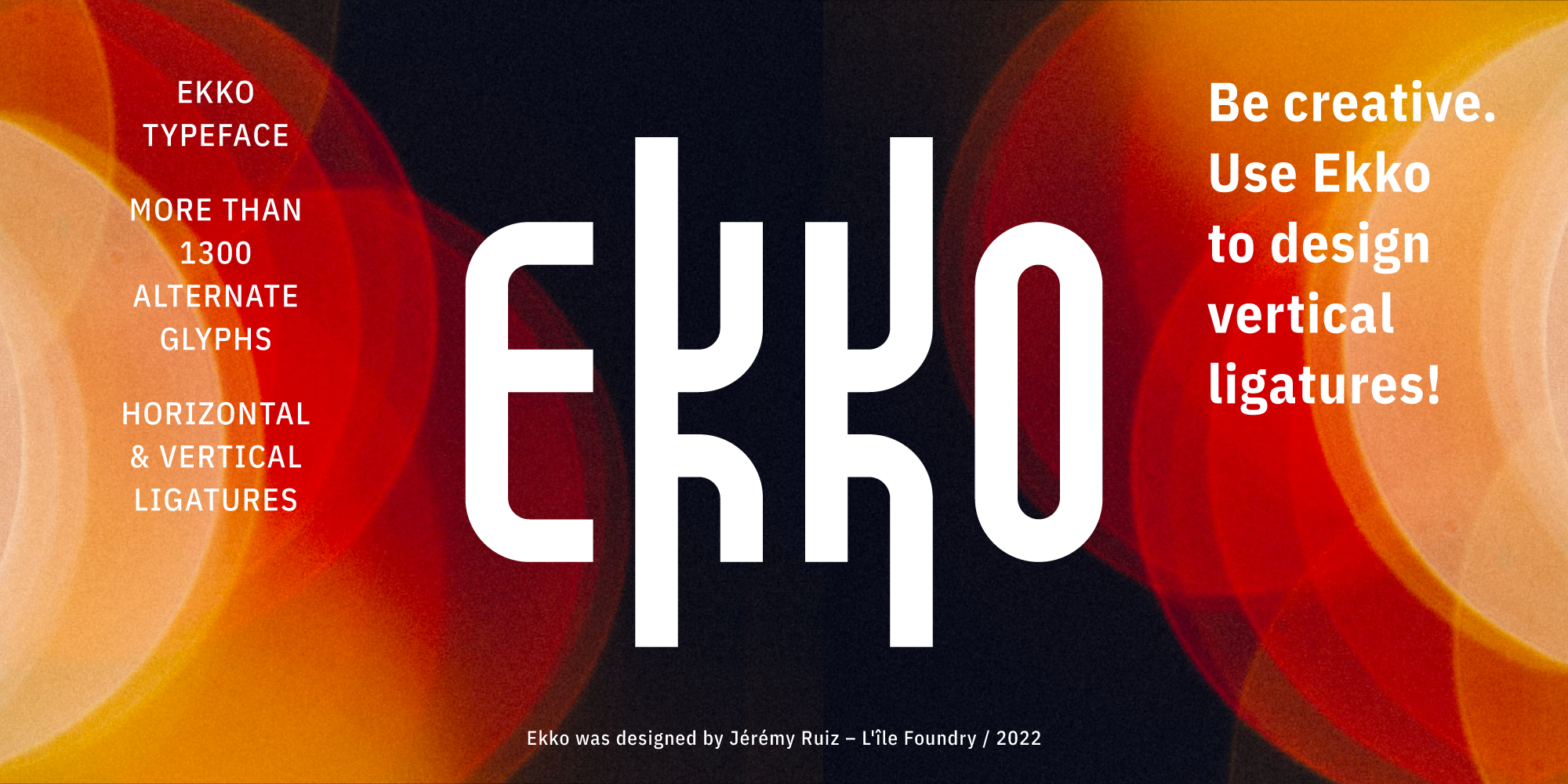
Bring contemporary style and dynamic flair to your designs with Ekko Font Free Download. This modern sans-serif typeface features clean, sleek lines and a geometric structure, making it perfect for branding, logos, website design, and editorial layouts. Ekko Font Free Download offers a bold, professional look with a minimalistic design, ideal for projects that need to make a strong visual impact.
With its sharp edges and balanced proportions, Ekko Font is versatile enough for both digital and print projects, including business cards, social media graphics, and modern promotional materials. Its smooth, modern design enhances readability while adding sophistication to any design.